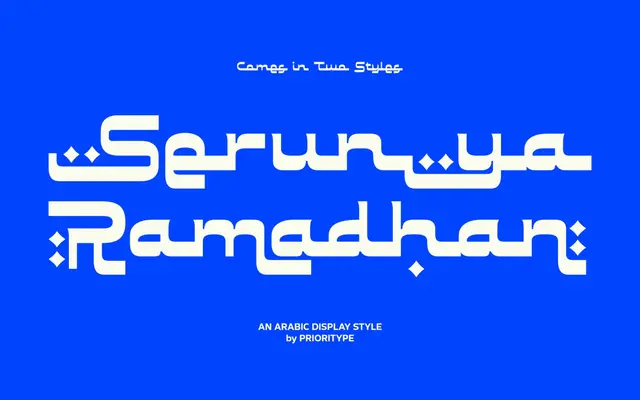
Serunya Ramadhan
Prioritype · 2025
A bold Latin display font drawing on Arabic calligraphic forms, aimed at Ramadan and Eid-themed design work.
The letterforms take visual cues from Arabic calligraphy whilst remaining Latin in structure, giving it a festive, culturally specific character suited to posters, packaging and celebratory branding. An extrude variant adds a dimensional option for headlines. Alternate characters and stylistic sets provide layout flexibility within a single weight offering.
A bold Latin display face with Arabic-inspired letterforms; classified as display due to its decorative character and suitability exclusively for headlines and short-form use rather than body text.